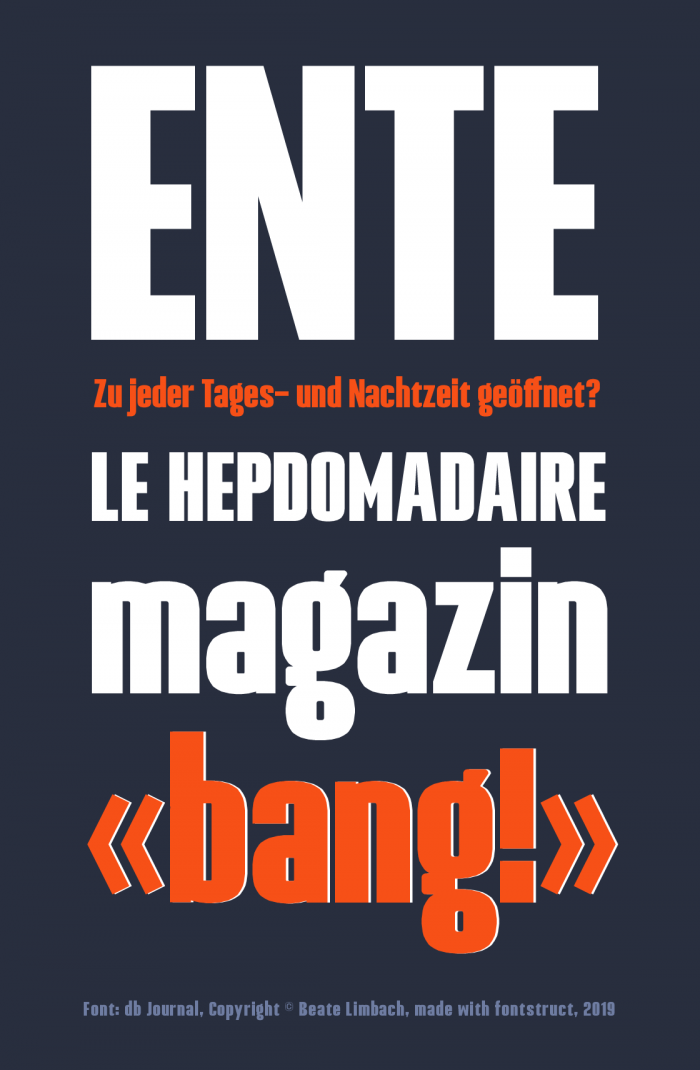
db Journal
Awesome stuff !
Smooooooothy curves
Nice, but are you 100% sure about B? Looks like a different colour to me :)
@JingYo The feeling when you think the curves are smooth, but when you zoom in, he used the slope bricks...
@djnippa It was probably saved as a .jpg file... The B is probably the same color...
@Se7enty-Se7en Yes, but it is still very smooth
I love the Impact-like feel of the UC! Maybe this is the new Impact? :)
Beautiful! 10/10
* needs some kerning
@Se7enty-Se7en. You totally misunderstand. Using the word 'Colour' when referring to fonts is a technical term that means its weight looks slightly bolder/ darker/ lighter/ thicker/ thinner/ off/ different  - when compared to the rest of the font. :)
@djnippa ? Yeah... When I saw "color", I thought you were talking about a Hex value that are all bytes to setermine the amount of Red, Green, and Blue mixed together...
Thanks dj, I'm d'accord with you. Where you are right, you are right. I changed the color a bit. Oh, and next time I'll try another file format. Promised.
AMAZING
@beate. Spot on with the B now. 10/10
This is great; granted, I like the majority of your work—it's quirky. My only pet-peeve is J; I prefer the original design, which descends. I'm not sure who started designing them on the baseline. . . . Anyway, nice font. :)
@TCWhite What do you mean by "My only pet-peeve is J; I prefer the original design, which descends."
I like this design... Reminds me of Impact...
Ah, I can see the confusion, lol. I wasn't referring to your original design. I was referring to the fact that I prefer js with descenders, which is the original form of the character when it was first created; i.e., since medieval times. It is an I with a descending tail. Like this: J
Jeepers, this looks nice.
Very nnice work.  Congrats on the TP.